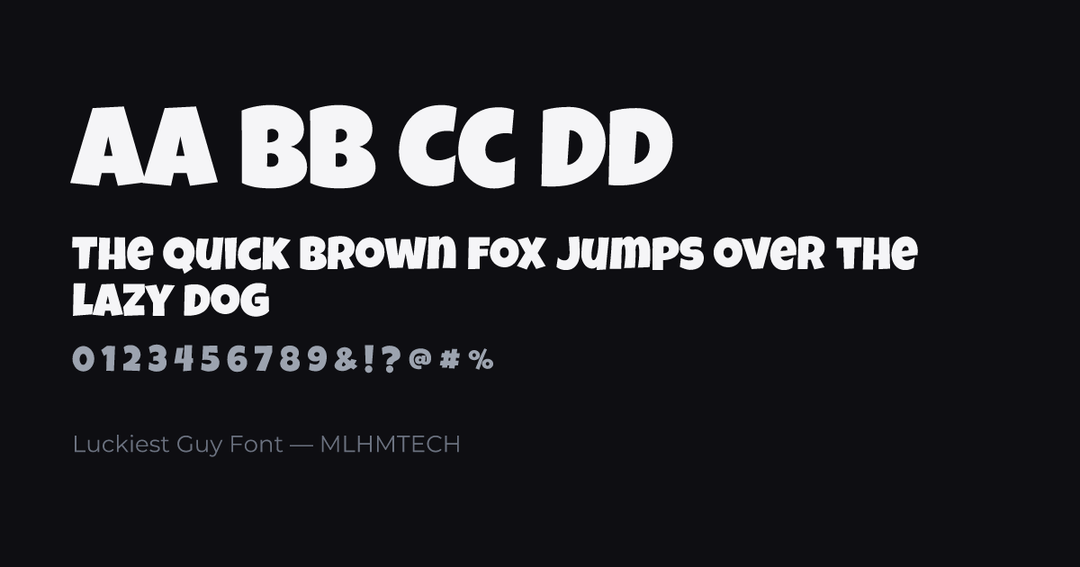
Luckiest Guy Font
Luckiest Guy is a bold, retro-inspired display font that adds a playful, vintage feel to any design. Perfect for headlines, posters, and logos.
Luckiest Guy is a bold, chunky display font with a retro, comic-book aesthetic. Its thick strokes and rounded corners give it a friendly, energetic personality that works well for headlines, posters, and branding.